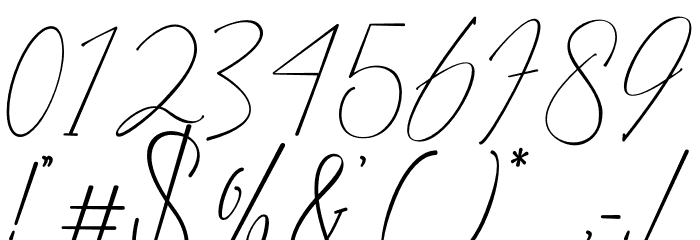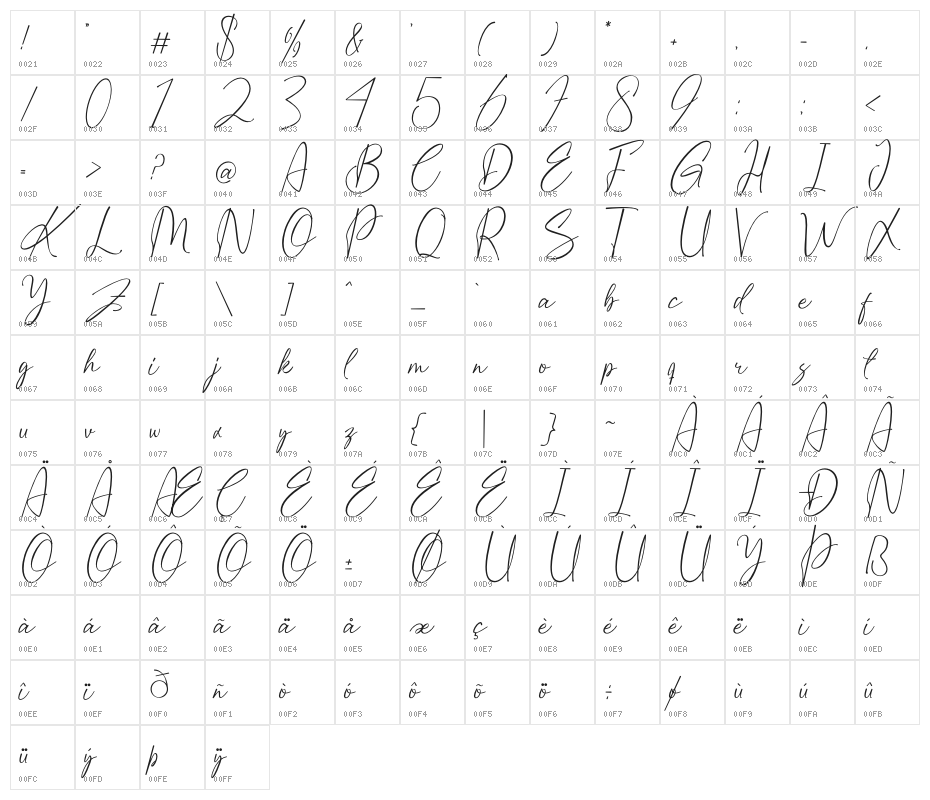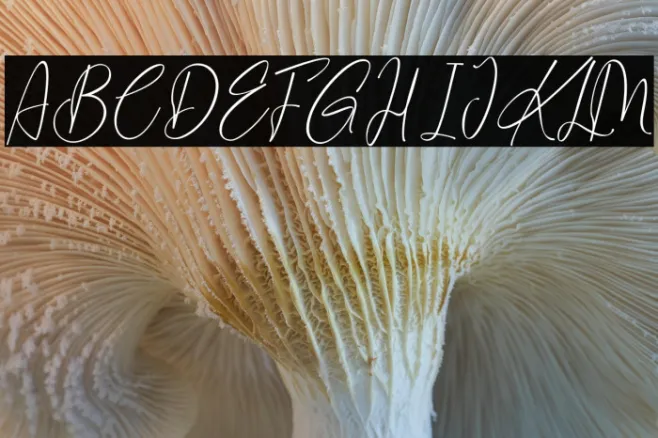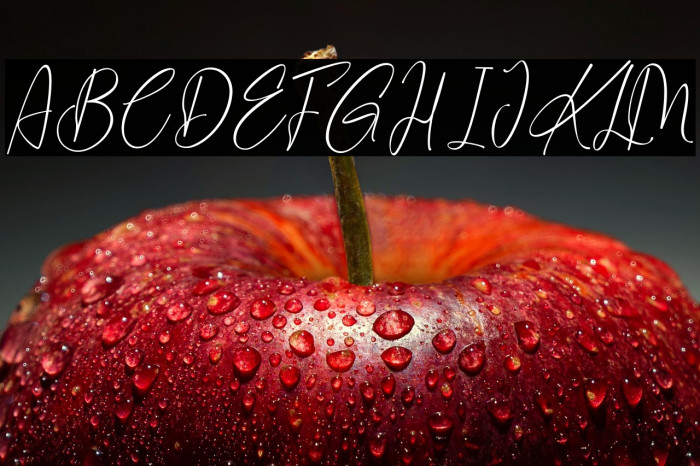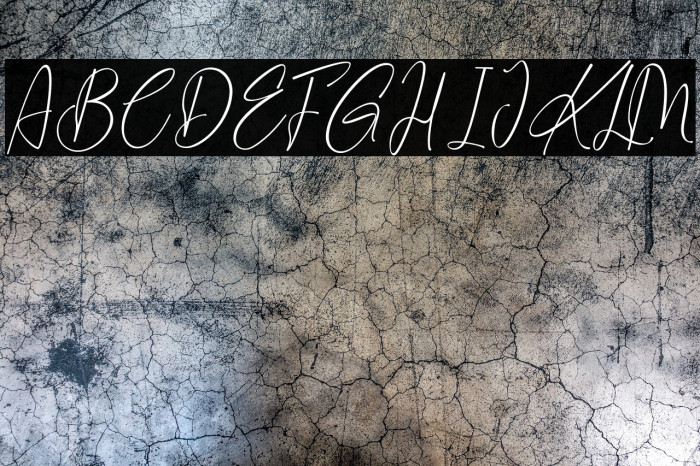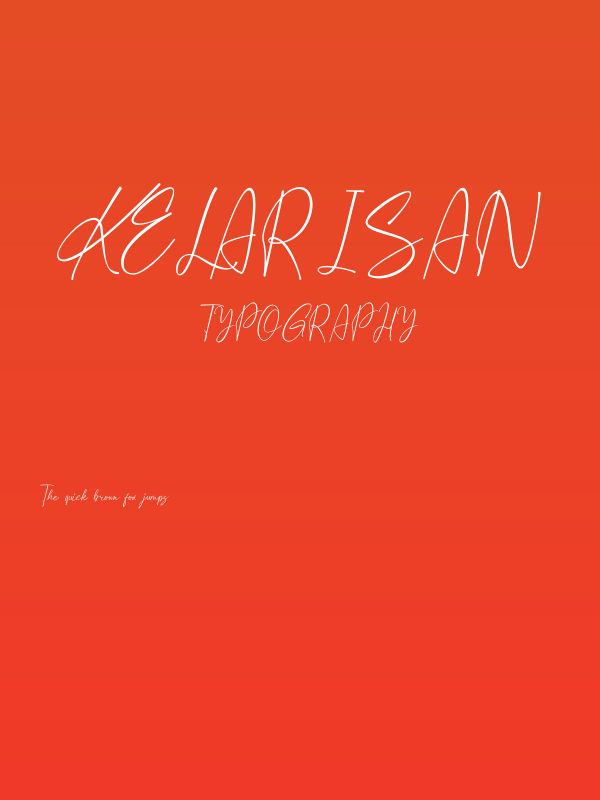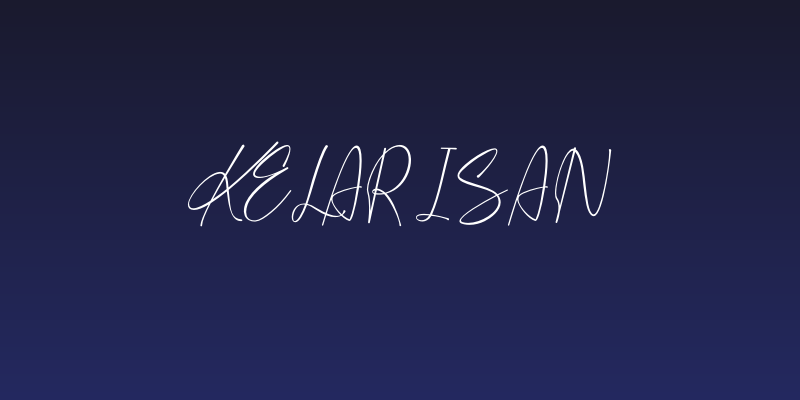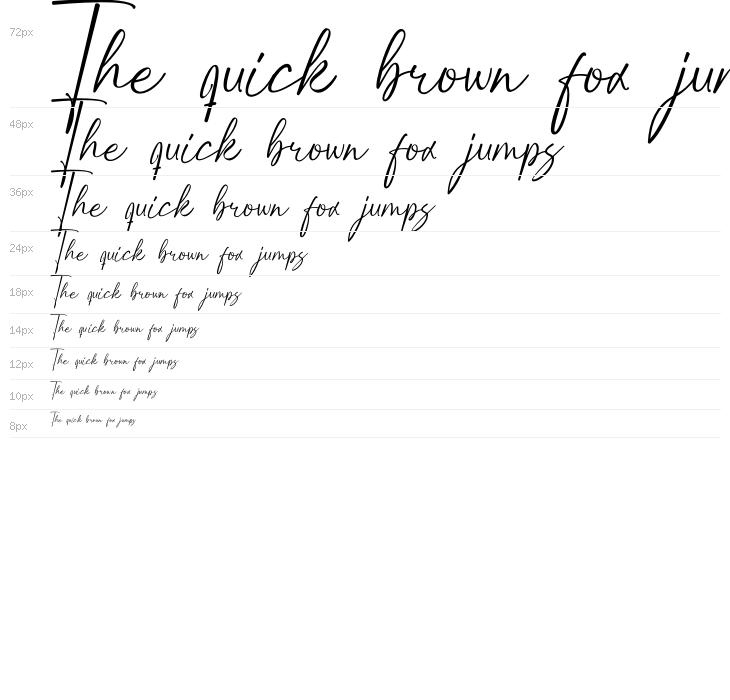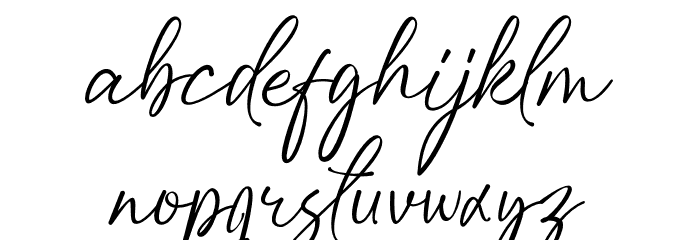
Kelarisan Font
Kelarisan Description
This font features a flowing, cursive style that mimics elegant handwriting. The uppercase letters are tall and slender, with a slight slant that adds a dynamic feel. Lowercase letters are more compact, maintaining a consistent flow with smooth curves and loops. The numbers are distinct, maintaining the same cursive style, which makes them blend seamlessly with the letters. Special characters are creatively integrated, maintaining the font's overall aesthetic. This font exudes a sense of sophistication and personal touch, making it ideal for projects that require a personal or artistic flair.
| Overall Style | Elegant, Artistic |
| Proposed Projects | Ideal for wedding invitations, greeting cards, personal branding, and artistic projects. |